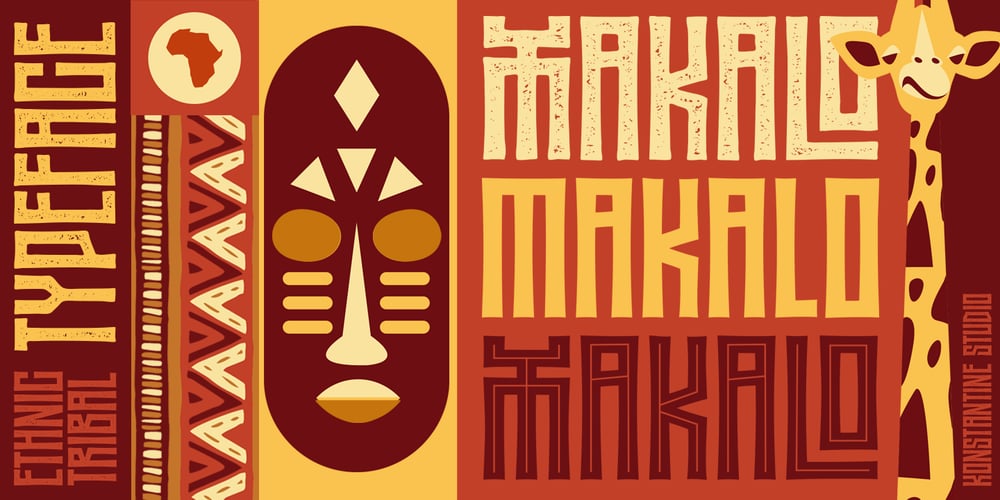
Makalo
Makalo font
Makalo Font Family was designed by Abdilah and published by Konstantine Studio. Makalo contains 3 styles and family package options. Pack up your bags and let’s travel to somewhere far away. Dive deep into the ethical visual vibes together with MAKALO.Inspired by the traditional tribal and visual ethnic vibes. Perfectly fit for your fun and casual thematic visuals, logo, branding, products, campaigns, events, seasonal promotions, traditional concept, explore the different sides of your brand using MAKALO fonts.Came up with 3 different styles, Regular, Clean, and Inline. And also packed up with Stylistic Alternates and Ligatures to explore the deeper vibes of ethnic and tribal visuals.